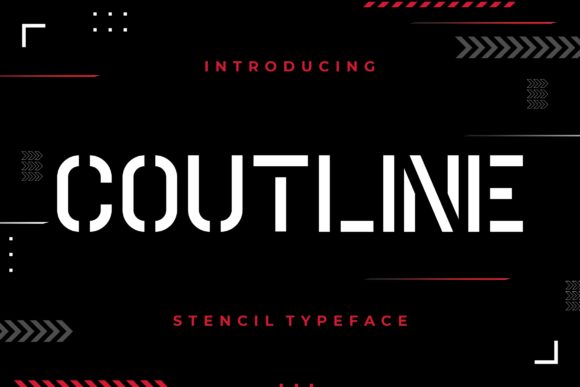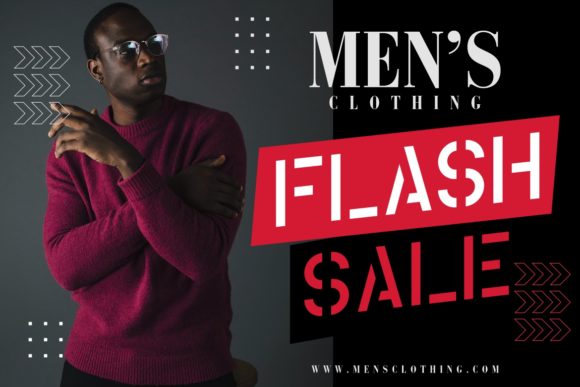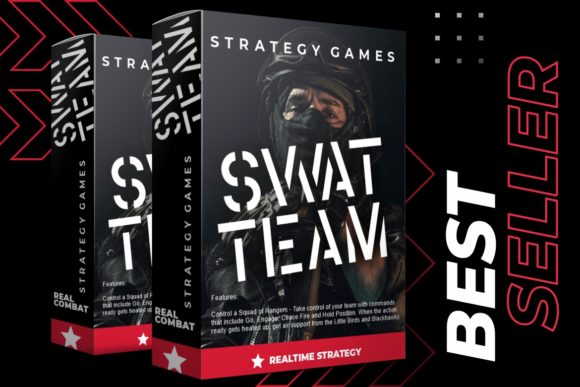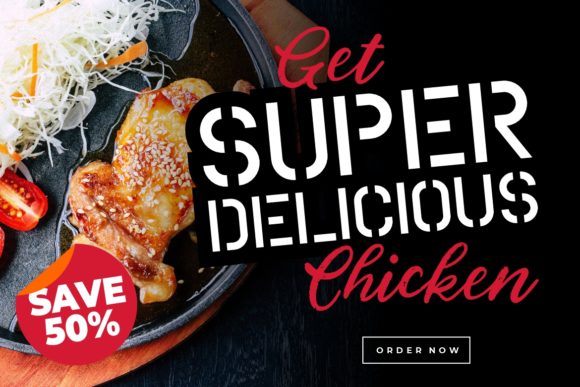
Coutline Stencil Typeface Font
About the Coutline Stencil Typeface Font
Let us introduce you to Coutline Stencil Typeface Font, where timeless design meets modern craftsmanship. Coutline is an all caps sans serif font inspired by military design and urban graffiti.
Coutline is perfect for branding projects, logo, wedding designs, social media posts, advertisements, product packaging, product designs, label, photography, watermark, invitation, stationery and more.
Coutline’s strong, graphic forms make it ideal for headlines, short impactful statements, and branding applications requiring a bold, assertive presence. It excels in poster design, packaging for edgy products, and logo creation where a military or street-art aesthetic is desired. However, its condensed letterforms and all-caps nature make it less suitable for body text or UI elements where readability is paramount. Avoid using it for large blocks of text.
Pairing Coutline effectively requires considering its high contrast and geometric structure. A clean sans-serif like Open Sans or a neutral serif such as Merriweather can provide a balanced contrast, offering readability where Coutline provides impact. For a more playful approach, a rounded sans-serif like Montserrat could soften its edge. Avoid pairing it with overly decorative or script fonts, which would clash with its strong, utilitarian personality.
Coutline projects a rebellious, modern, and confident personality. Brands targeting younger demographics, streetwear labels, or projects emphasizing strength and urban style will find it particularly effective. Its versatility lies in its ability to convey both a sense of authority and a raw, energetic feel.
Coutline Stencil Typeface Font Usage Examples
Coutline Stencil Typeface Font Example